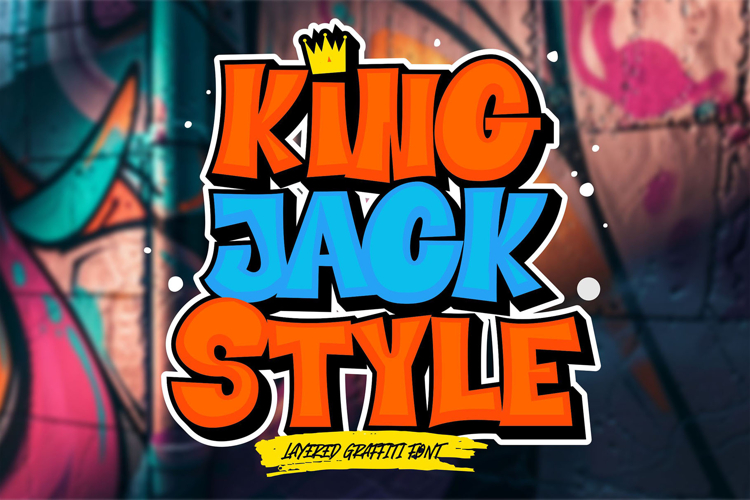
King Jack Style - Layered Graffiti Font
Introducing King Jack Style – the ultimate Layered Graffiti Font that reigns supreme in urban design. Combining the raw power of street art with the versatility of layered typography, King Jack Style is crafted to elevate your creative projects with boldness and flair.
🎨 Regal Urban Flair: King Jack Style captures the essence of graffiti with its dynamic, layered strokes that exude authority and creativity. Each letter embodies the spirit of the streets, making it perfect for designs that demand a commanding urban touch.
🌆 Layered Versatility: This font offers multiple layering options, allowing you to mix and match for a unique and personalized look. Whether you're creating complex designs or simple statements, King Jack Style provides the flexibility to achieve the perfect aesthetic.
🖌️ Dynamic and Bold: The intricate design of King Jack Style combines smooth curves with sharp edges, mimicking the spontaneity of graffiti art. Its layered structure adds depth and dimension, making your text pop with a striking and memorable visual impact.
💥 Powerful Statements: King Jack Style is designed to dominate. Its bold, layered letterforms ensure your text captures attention and leaves a lasting impression. Use it for headlines, titles, and other prominent elements to create bold, eye-catching visuals.
🖋️ Versatile Application: Whether you're designing for print or digital media, King Jack Style adapts seamlessly to various applications. Its edgy style is perfect for a wide range of creative projects, from branding and music posters to event flyers and advertisements.
Rule your designs with King Jack Style – the Layered Graffiti Font that combines the raw energy of street art with the sophistication of layered typography. Perfect for making a bold and impactful statement, King Jack Style is your go-to font for adding a powerful urban touch to any project.